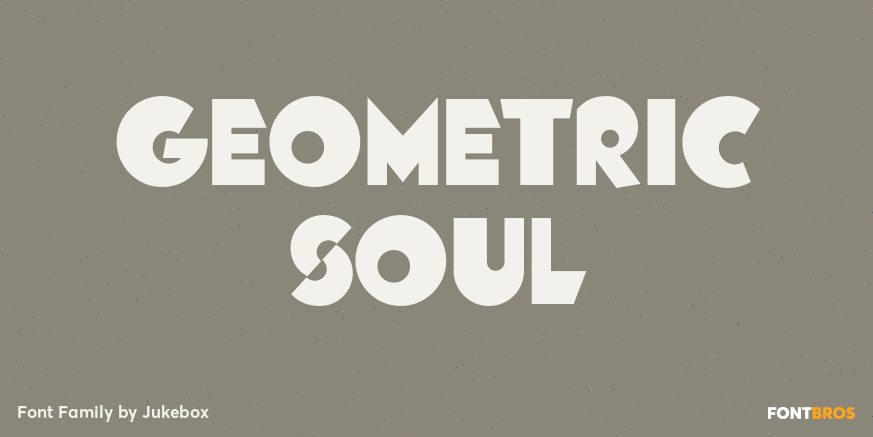
About Geometric Soul
Geometric Soul is an original Jukebox font that is constructed from basic shapes like circles and squares. I wanted to capture that unique look that letters have when you pare them down to their essential forms. Don ein the tradition of the geometrical…